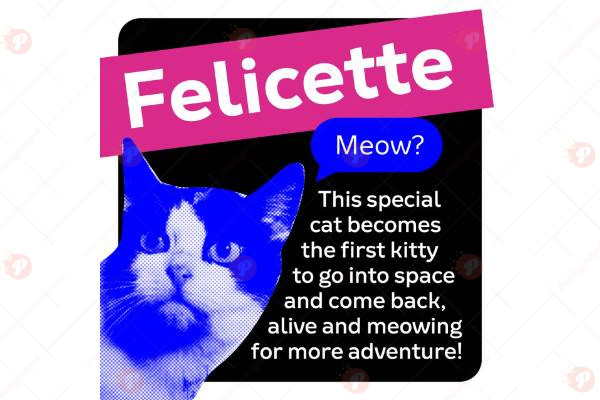
The Felicette Font Free is an elegant and modern typeface with a stylish touch that blends simplicity and sophistication. Its refined letterforms make it perfect for luxury branding, wedding invitations, fashion logos, product packaging, magazines, social media graphics, and event posters.
Whether you’re designing for a romantic project or a high-end brand, Felicette Font Free ensures your typography looks graceful, modern, and timeless. It’s versatile enough for both digital and print media, making it a must-have font for designers.
Typeface: Modern / Elegant / Serif or Display (based on style)
Style: Stylish / Refined / Minimal / Luxury
Perfect for: Wedding Invitations, Logos, Branding, Packaging, Fashion Magazines, Social Media Posts, Posters
Bring a luxurious and elegant vibe to your next project with the Felicette Font Free.